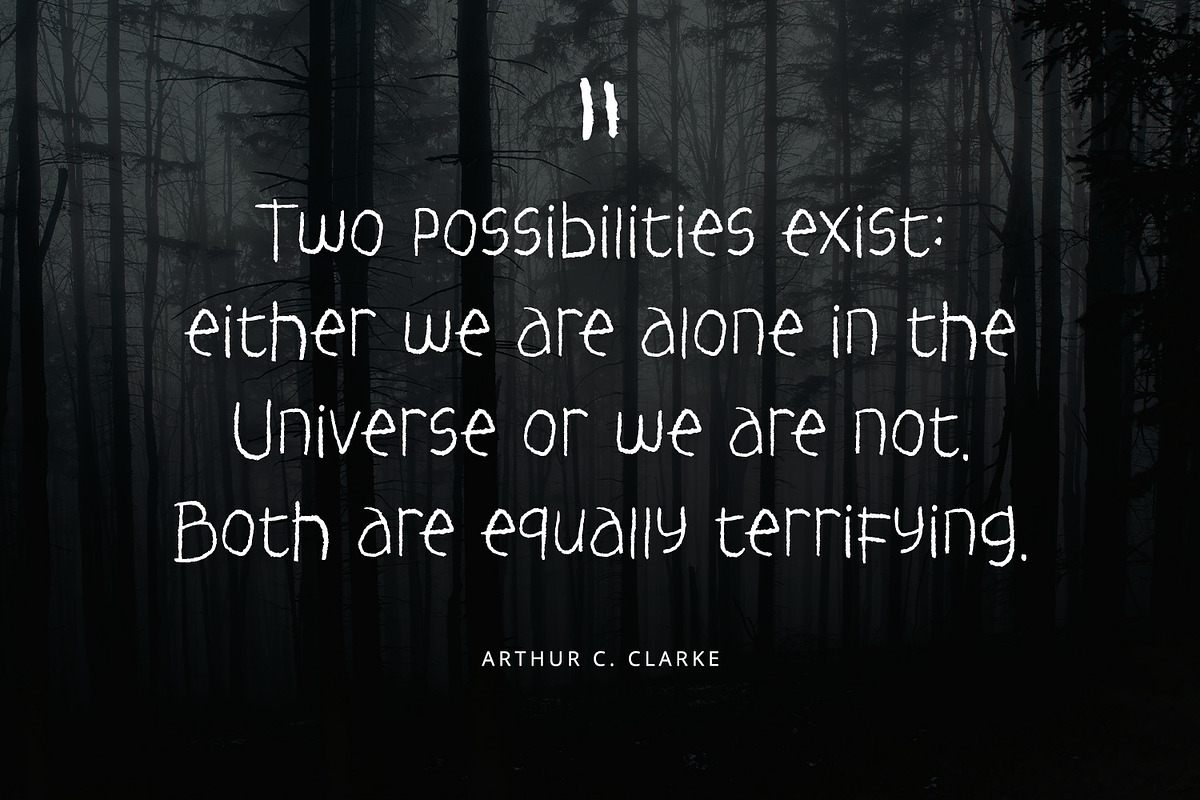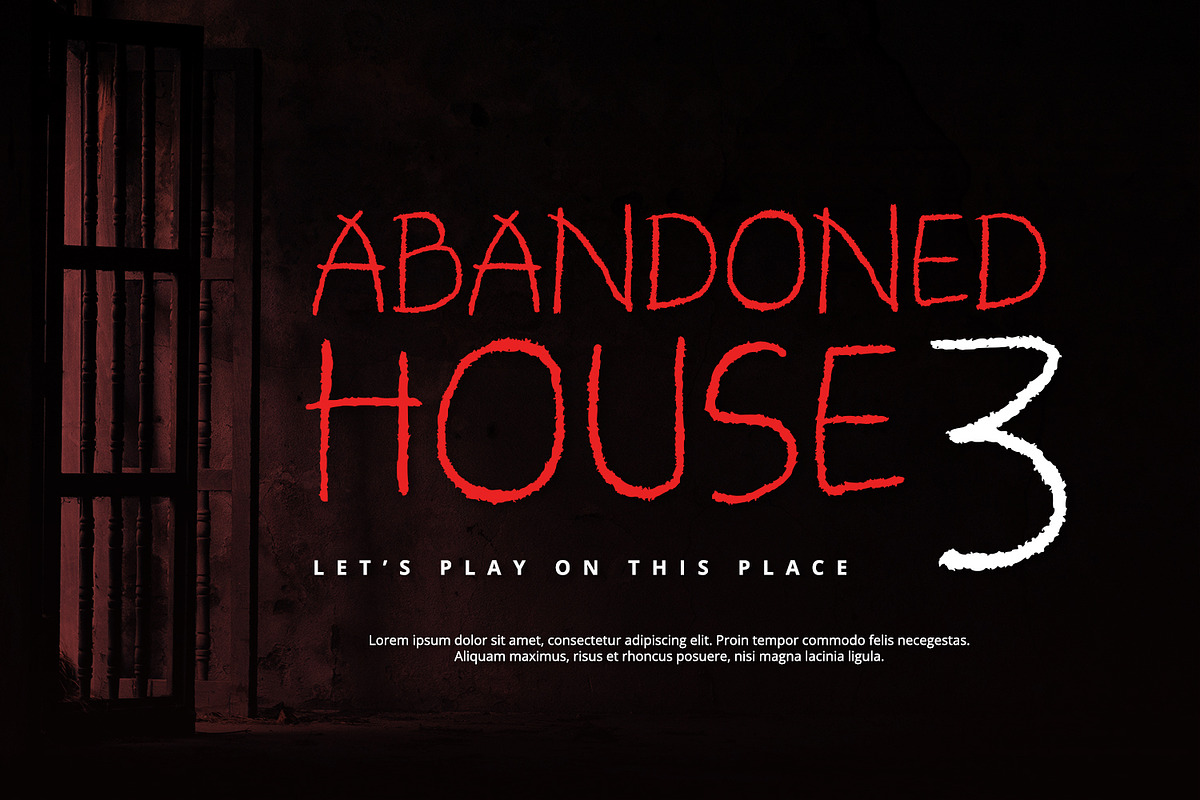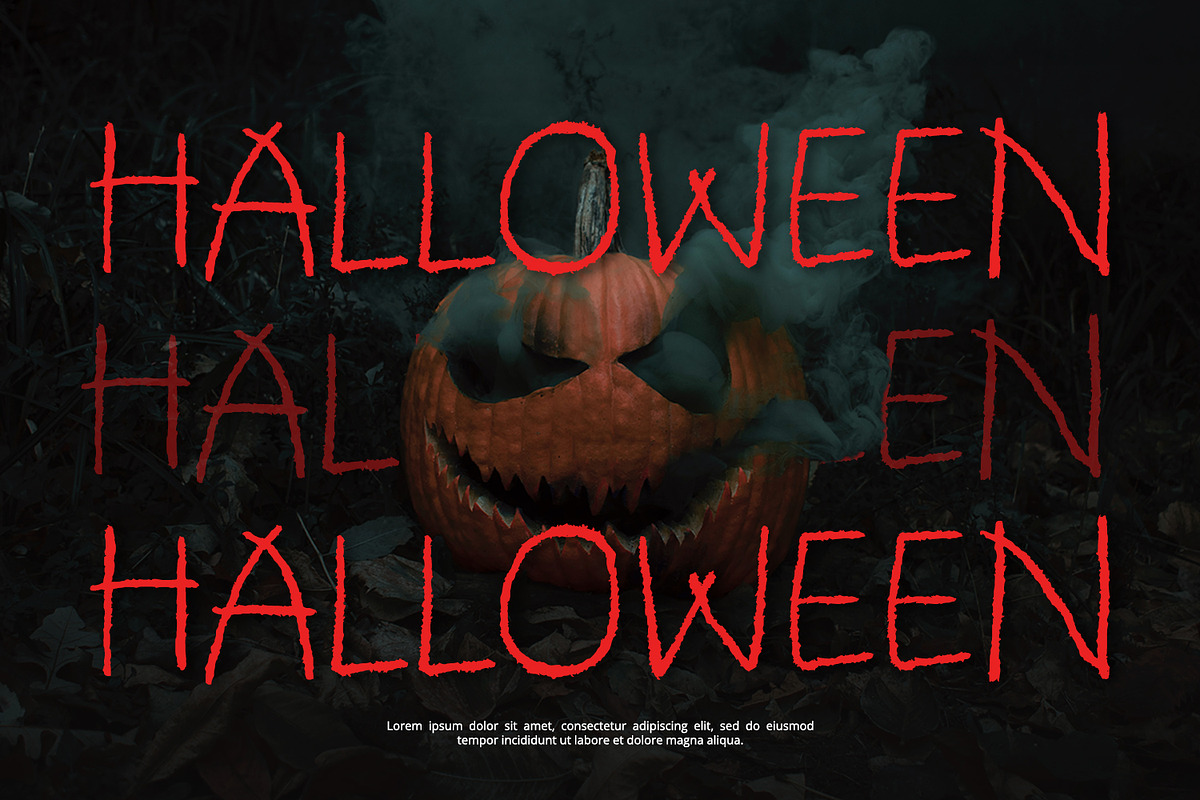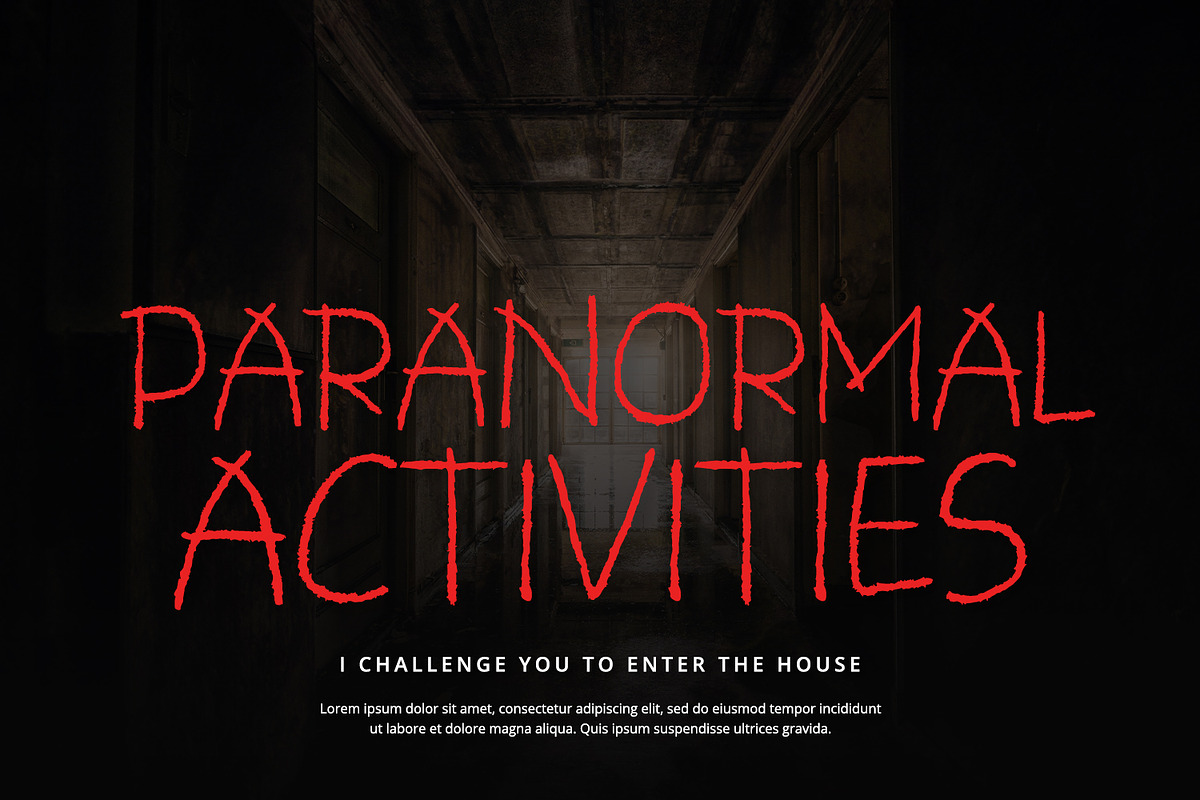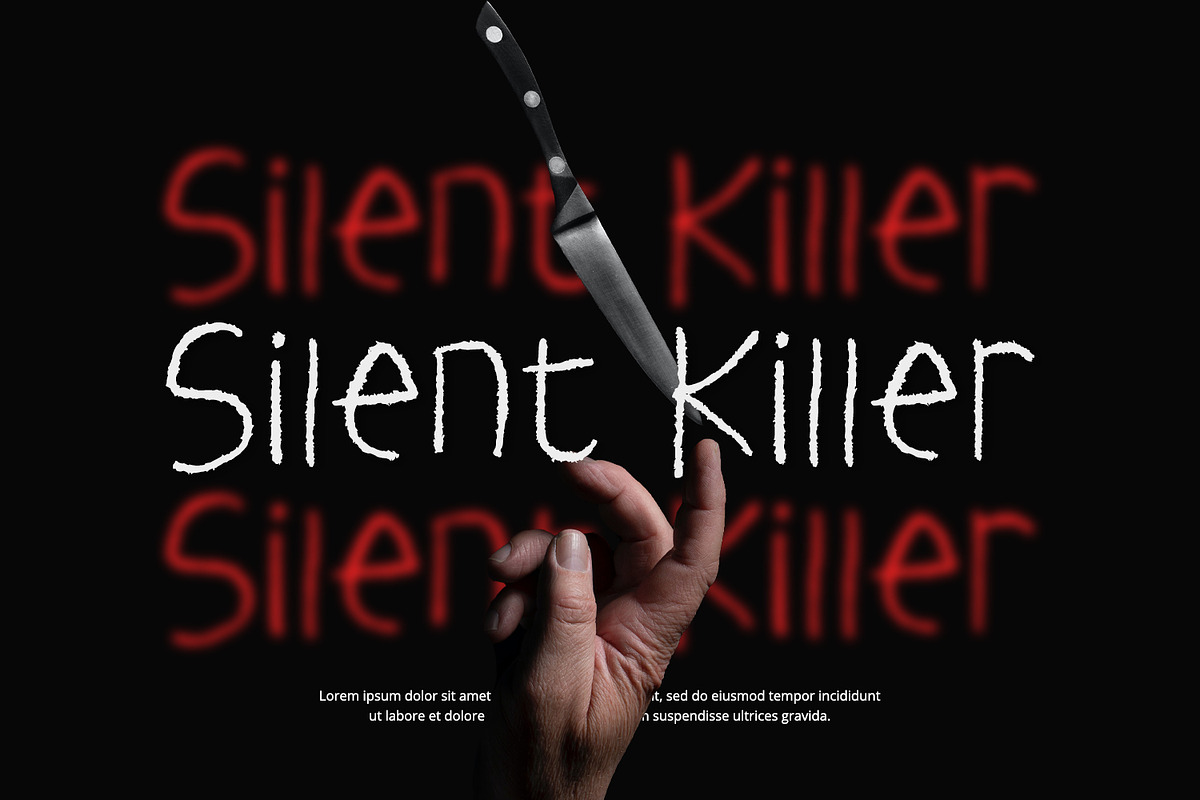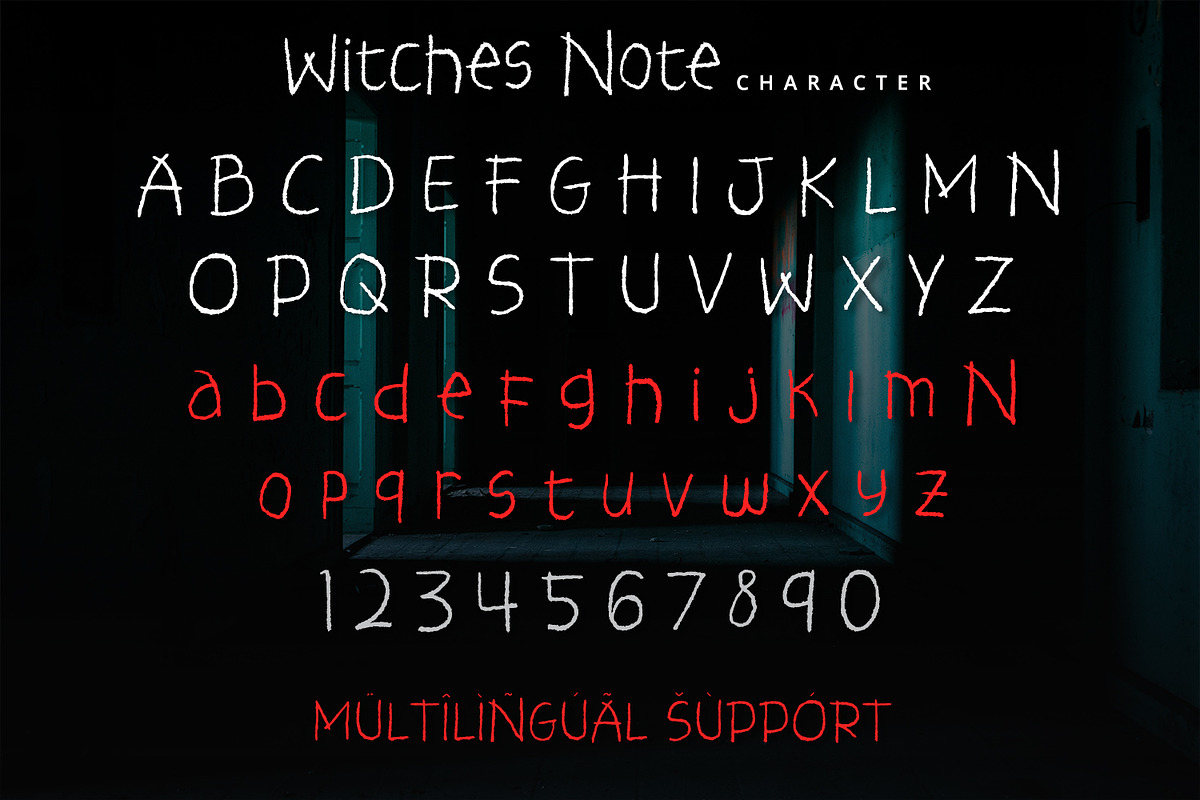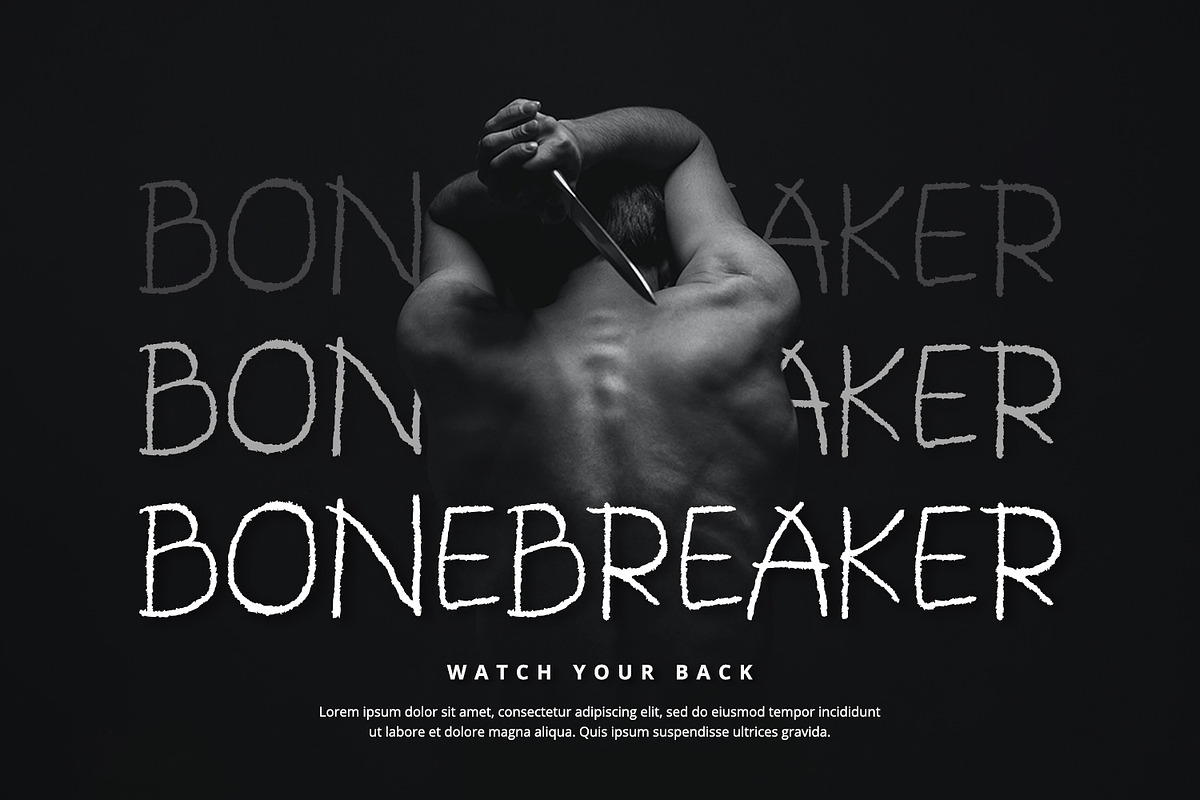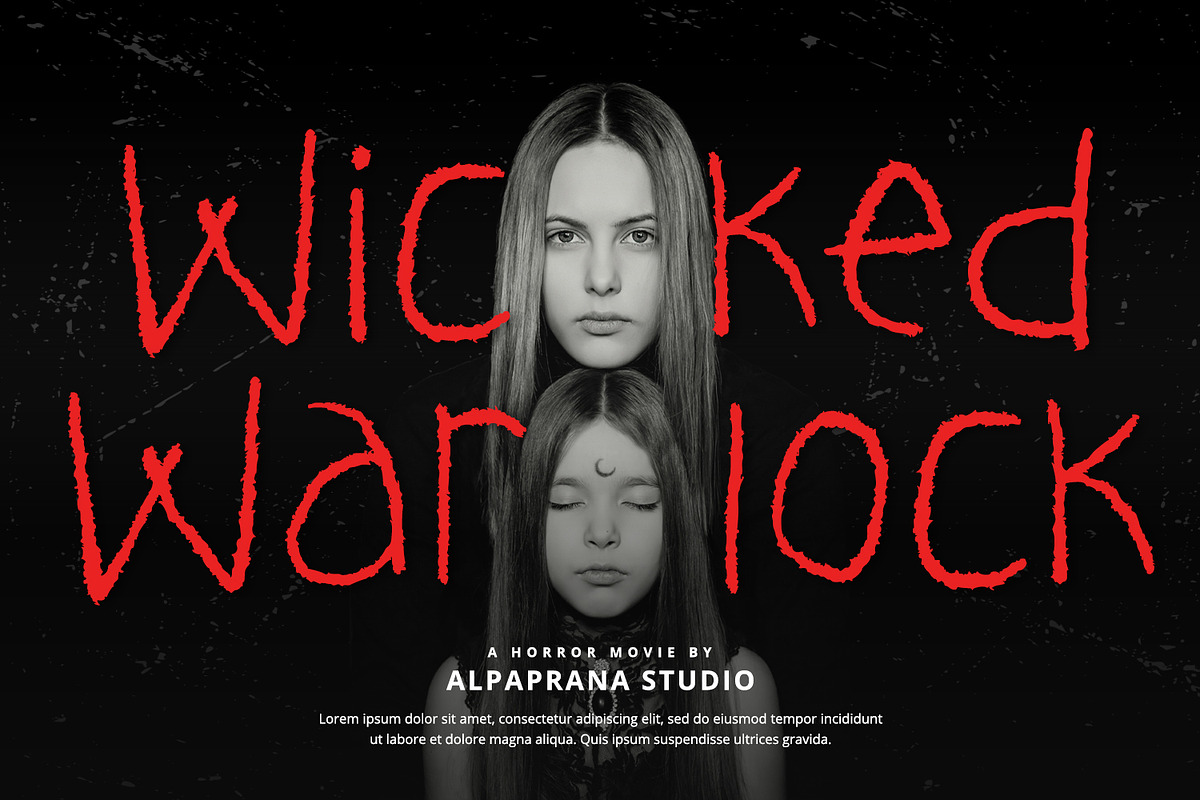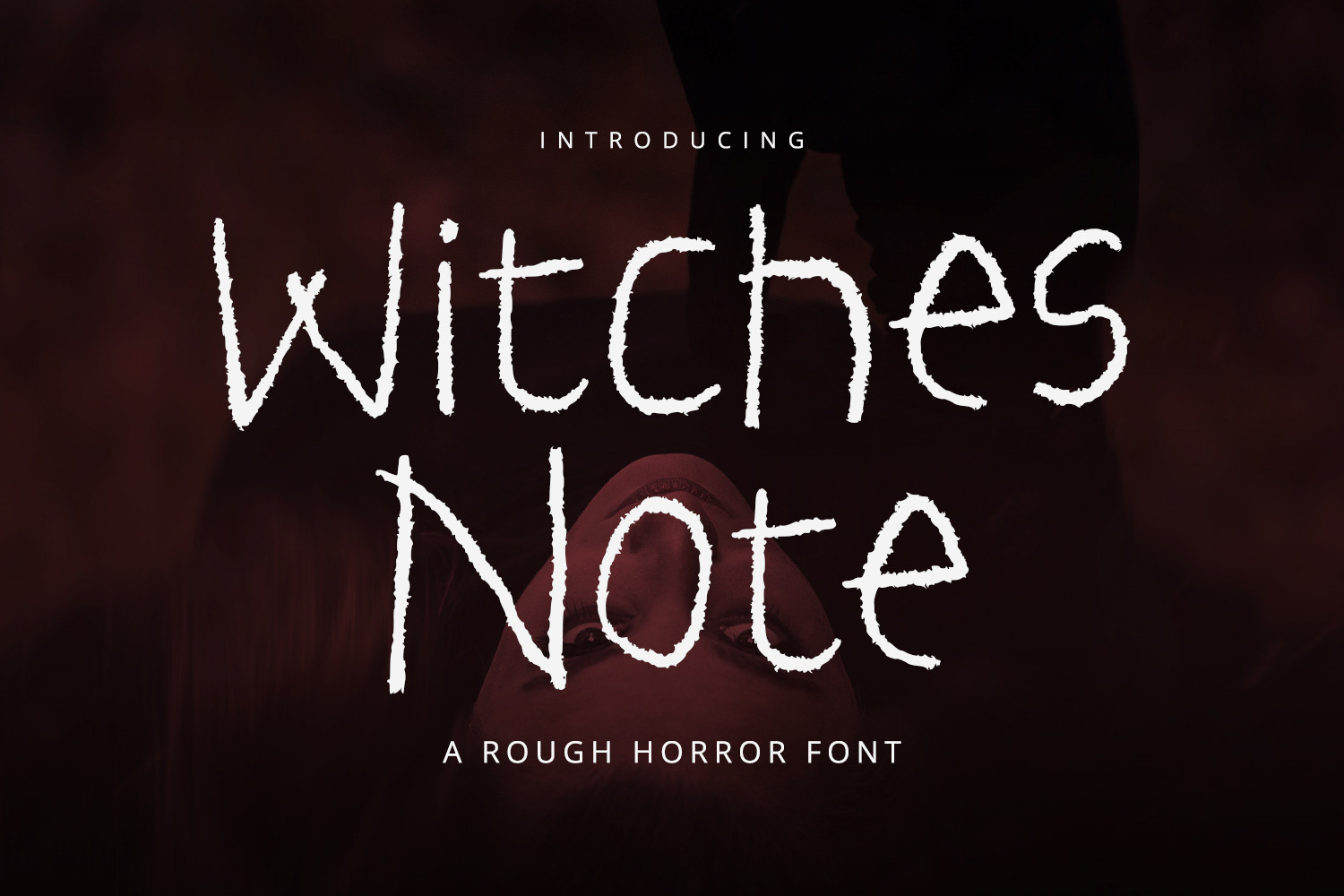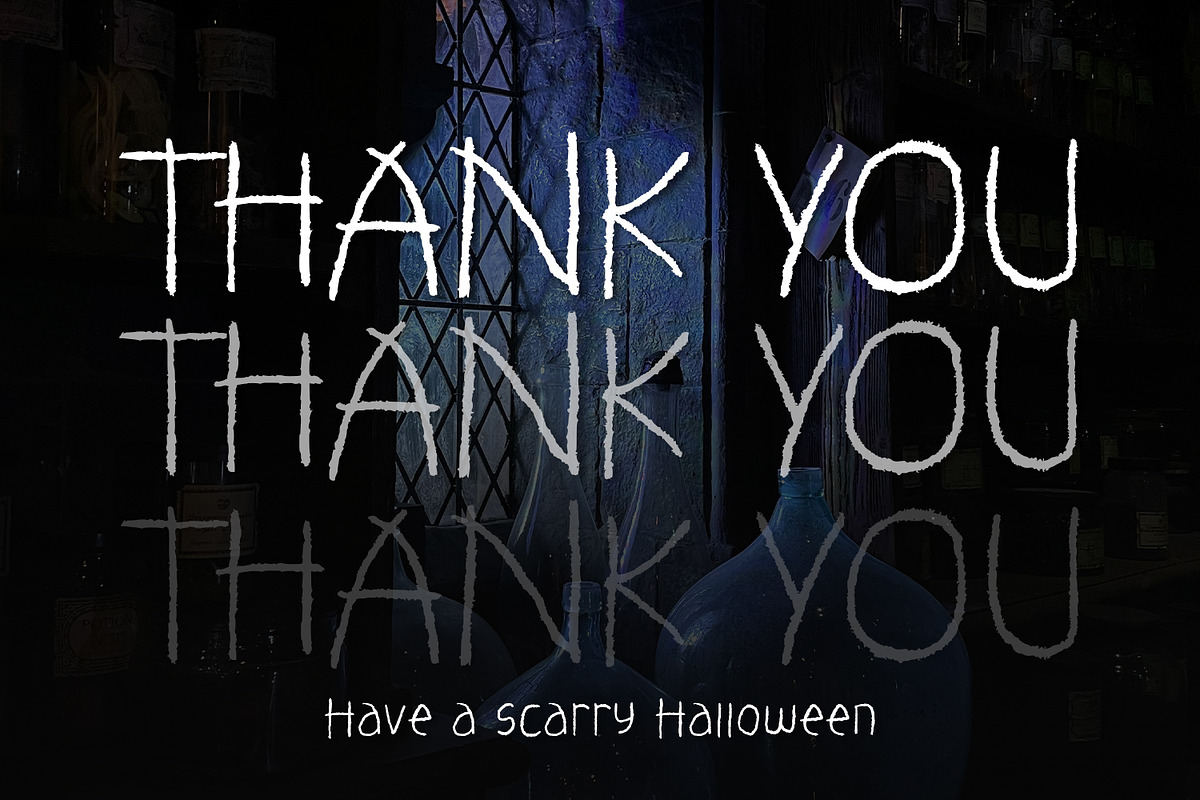
Witches Note - Display Font
Witches Note is a display horror font with unique and modern feels. It will be perfectly used for Branding, Logo Design, Lettering, Logotype, Clothing, Poster, magazine, packaging, posters, shopping bags, t-shirts, book covers, photography, special events and other design project.